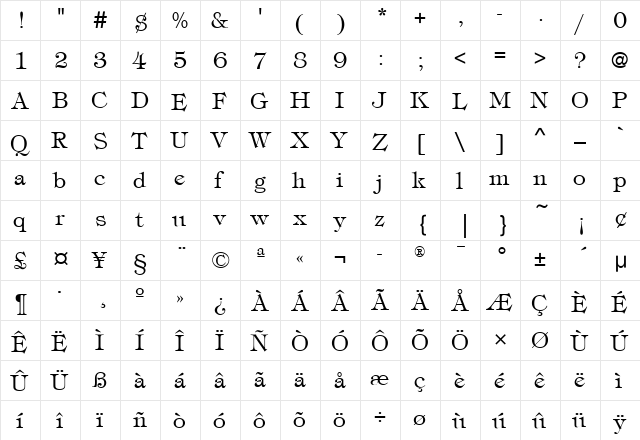
TiffanyITC Light
Design Context for TiffanyITC Typeface
TiffanyITC is a composed and adaptable typeface that performs quietly and consistently across a wide range of design contexts. Its slender proportions lend an understated elegance to any composition.